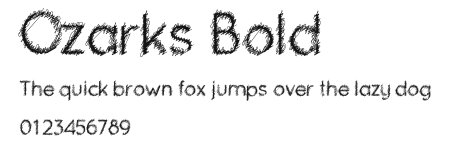
• Font Name: Ozarks Bold
• Full Font Name: Ozarks Bold
• Designer: Louis Dorman
About Ozarks Bold.otf
Ozarks Bold.otf is a modern, elegant sans-serif font designed for ultimate readability and visual harmony. Perfect for branding, headlines, web design, and print materials.